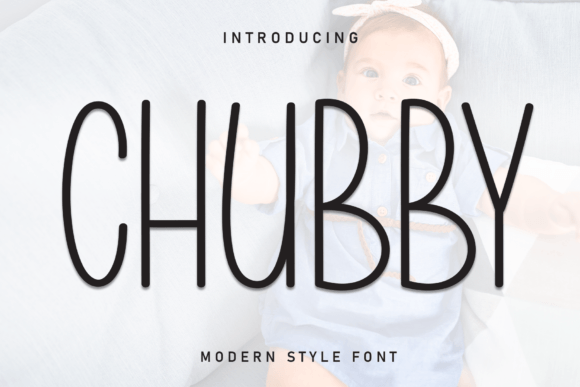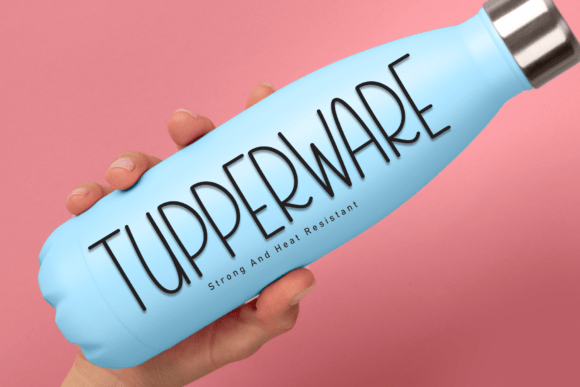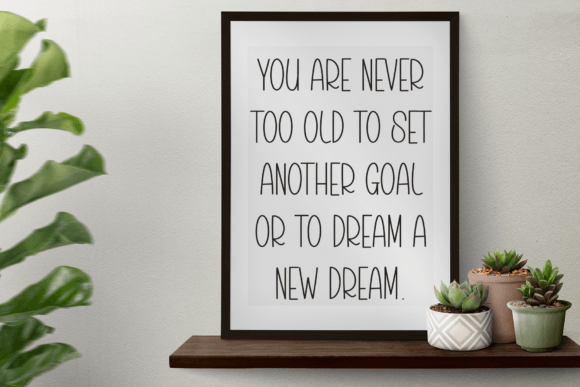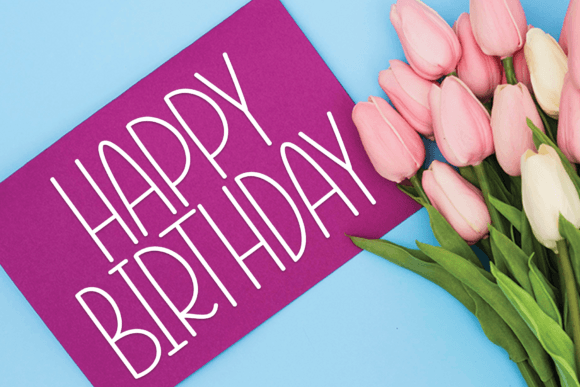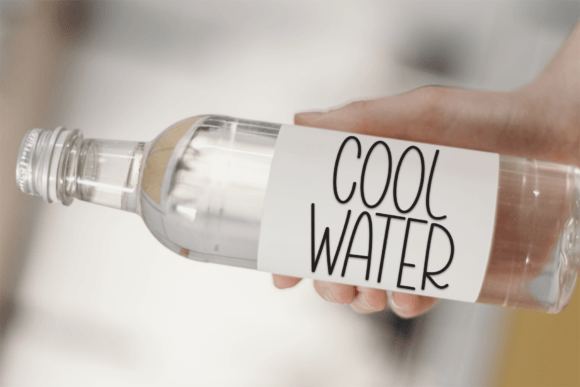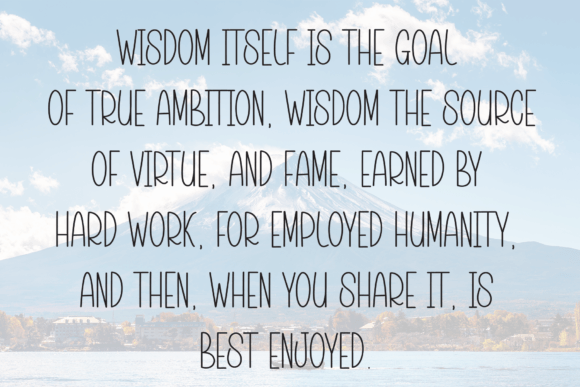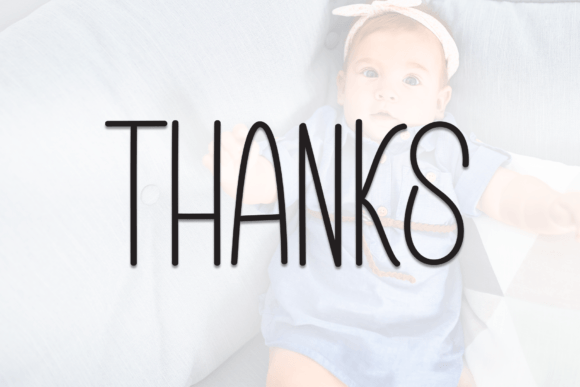
Discover the Charming Chubby Font
Have you ever stumbled upon the perfect font for a project, only to feel like it’s missing that special something to make it truly stand out? We’ve all been there, pouring over font libraries, searching for the elusive combination of style and personality that brings our designs to life. For designers looking to add a dash of whimsy and warmth to their next project, we’re excited to introduce the Chubby Font – a beautifully crafted, handwritten display font that’s sure to capture the hearts of your audience.
With its playful, endearing quality, Chubby Font is perfect for wedding invitations, greeting cards, and any other design that needs a touch of fun and intimacy. Whether you’re a seasoned designer or just starting out, this charming font is sure to be a valuable addition to your toolkit, allowing you to add a unique and personal touch to your work.
Chubby Font Key Features
- Unique Characteristics: Chubby Font is known for its playful, rounded shapes and soft lines, giving it a friendly and approachable feel. It’s perfect for use in children’s books, magazines, and other publications targeting a young audience.
- Font Style: Chubby Font is available in a single font style, which is a sans-serif font with a rounded edge. This style is perfect for creating a clean and modern look.
Designer Review: Chubby Font
When I first laid eyes on the Chubby Font, I was immediately drawn to its playful and whimsical feel ✨. The font’s rounded edges and soft curves give it a friendly, approachable vibe that’s perfect for projects that need a touch of warmth and personality. I can see this font being used in children’s books, nursery decor, or even branding for a bakery or a cafe.
The Chubby Font also works well for headings and titles, as it’s bold and attention-grabbing without being too overwhelming ✨. The font’s texture and subtle imperfections add a layer of depth and visual interest that makes it stand out from more straightforward sans-serif fonts.
- ⚠️ Limited character set: The Chubby Font only comes in a limited range of characters, making it less suitable for projects that require a wide range of languages or special characters.
- ⚠️ Not suitable for small text: The Chubby Font’s rounded edges can make it difficult to read in small text sizes, so it’s best to use it for headings and titles rather than body text.
Overall, I think the Chubby Font is a great addition to any designer’s toolkit, but it’s essential to keep its limitations in mind and use it in the right context. With the right project, this font can add a touch of magic and whimsy that’s hard to find elsewhere ✨.
Chubby Font Practical Application Guide
Tips for Getting the Most Out of Chubby Font
Chubby Font is ideal for creating playful and eye-catching designs. To get the most out of it, use it for:
- Children’s products and packaging